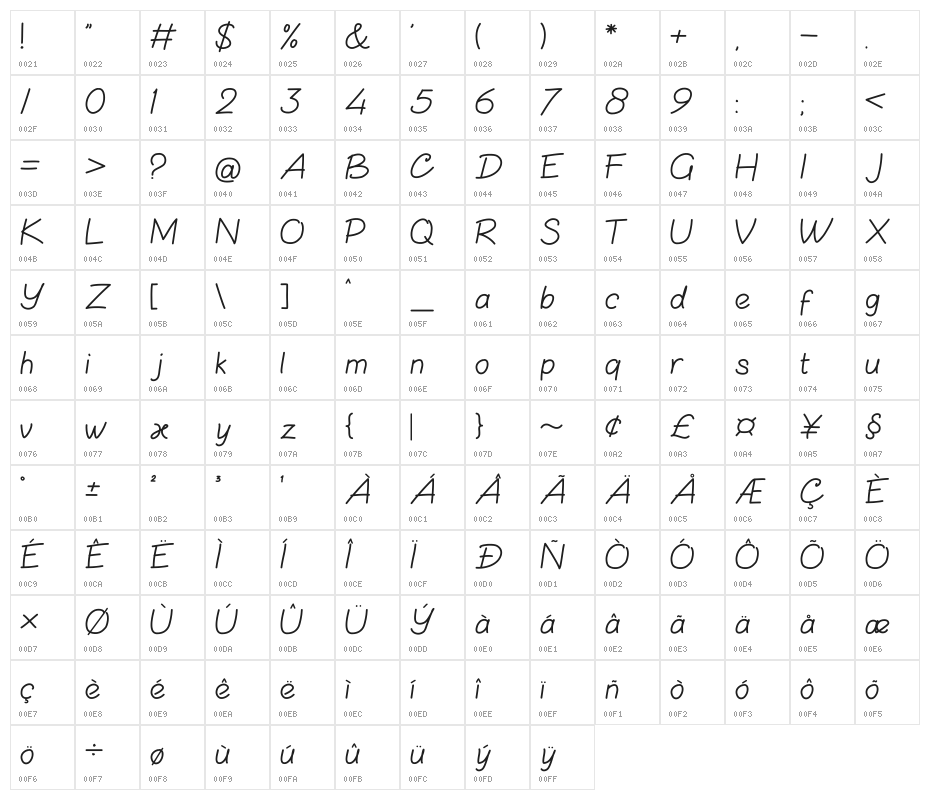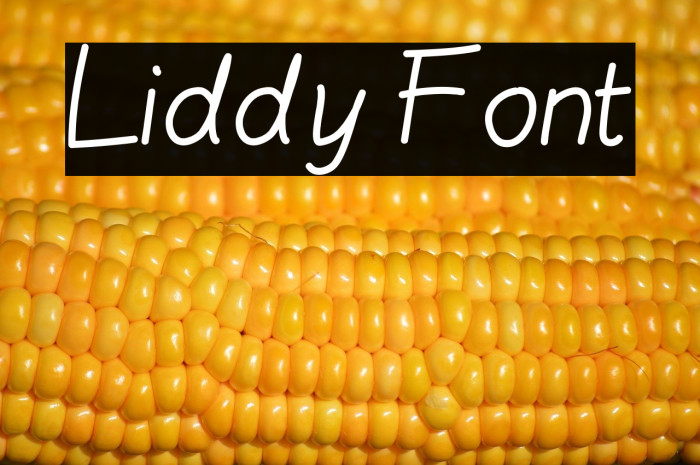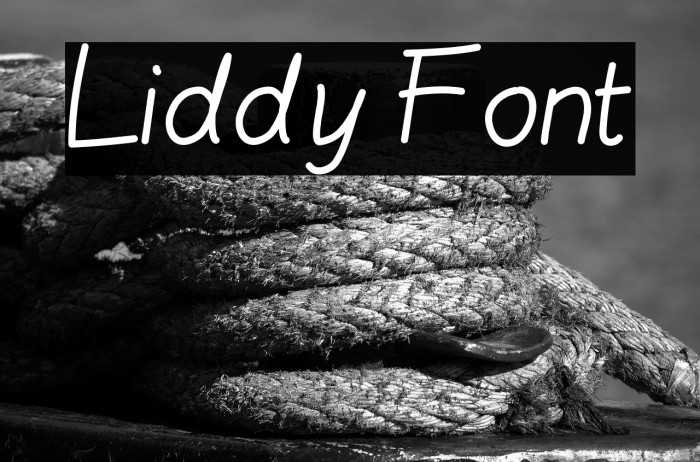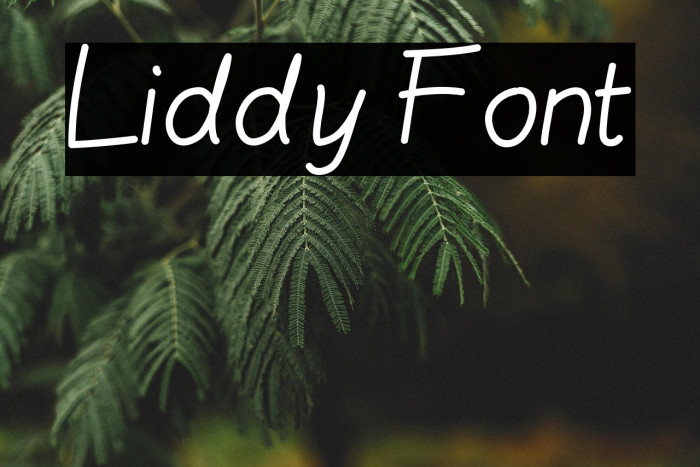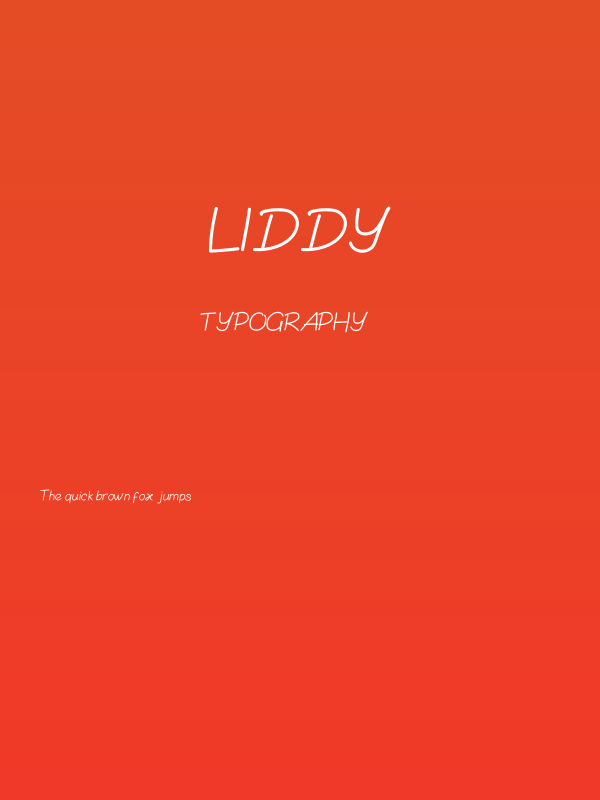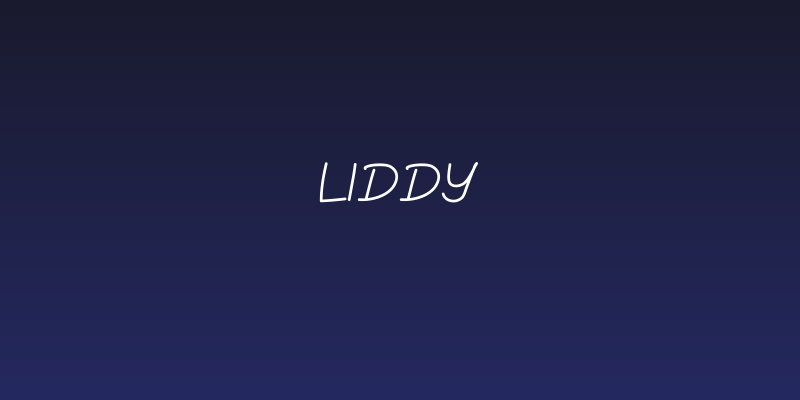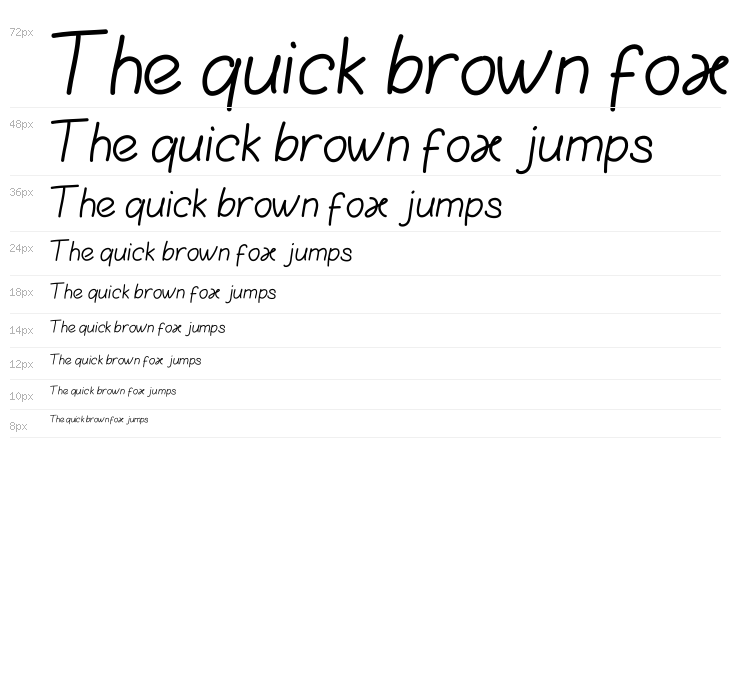
Liddy Font
Liddy Description
This font features a playful and casual handwritten style, characterized by its smooth, flowing lines and slightly slanted letters. The uppercase letters are bold and confident, while the lowercase letters maintain a friendly and approachable appearance. The numerals are clear and easy to read, complementing the overall informal aesthetic. Special characters are designed with the same fluidity, ensuring consistency across all glyphs. The font's design is perfect for conveying a sense of warmth and personality, making it suitable for a variety of creative projects.
| Proposed Projects | Ideal for greeting cards, invitations, personal branding, and casual social media graphics. |